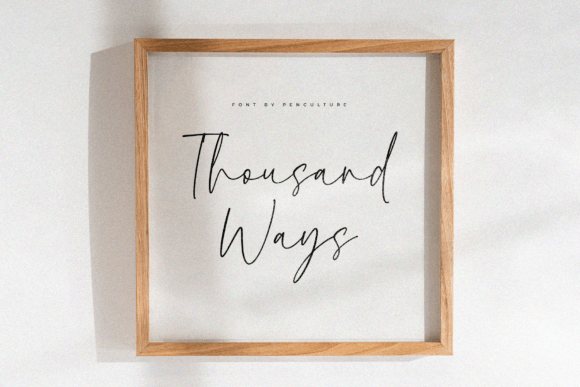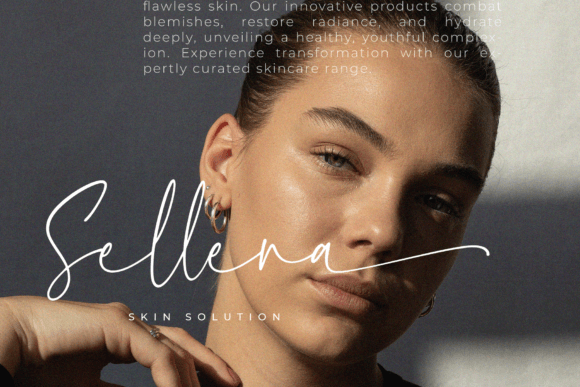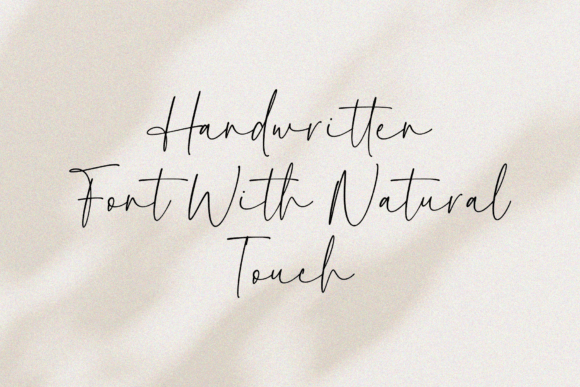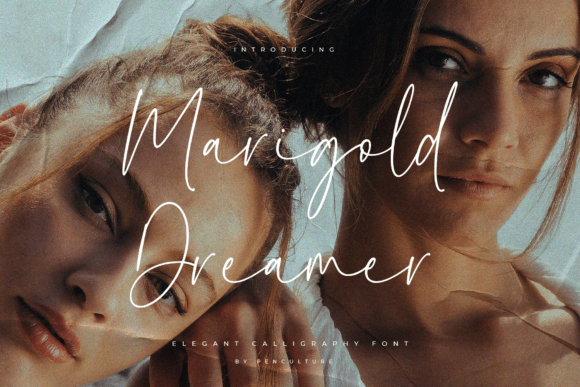
Introduction to Marigold Dreamer Font
Introducing Marigold Dreamer, a captivating handwritten script font created with love and care using traditional techniques.
Every letter of this font was meticulously handcrafted, resulting in a truly authentic and unique typeface Marigold Dreamer exudes a whimsical charm that adds a touch of warmth and personality to any project.